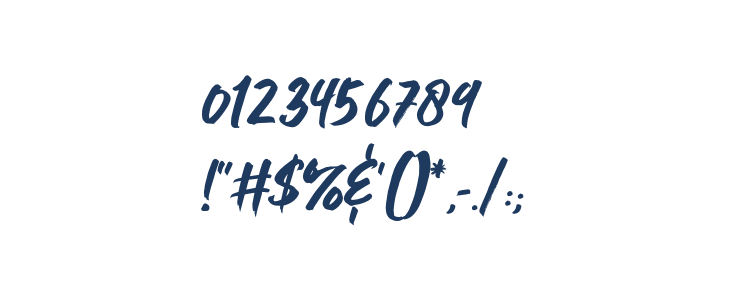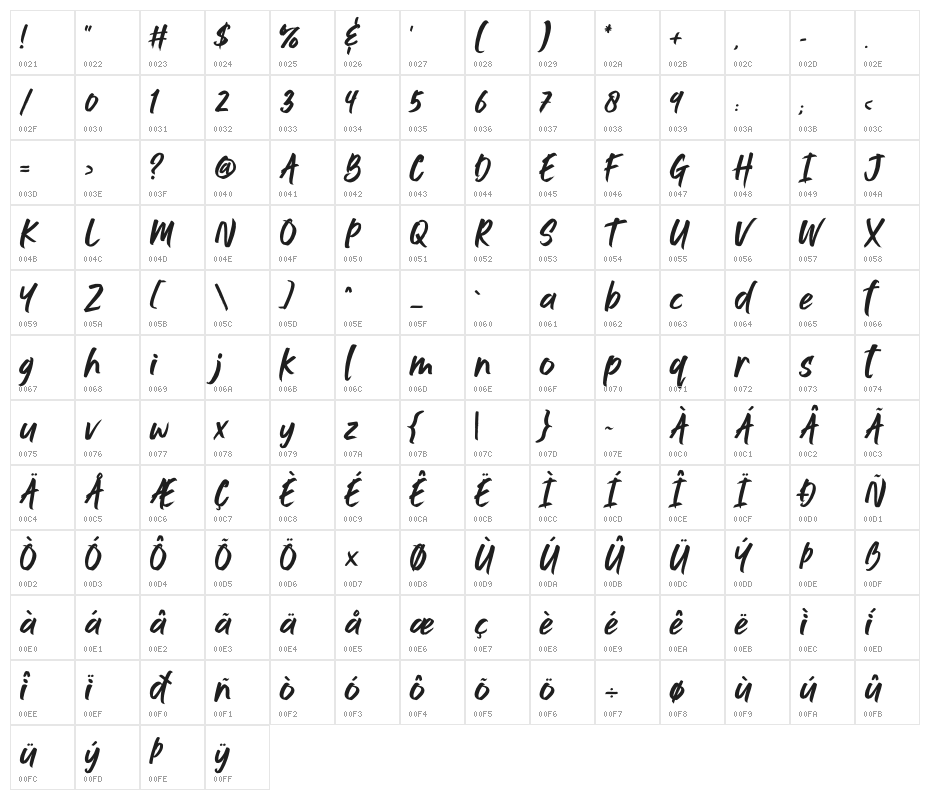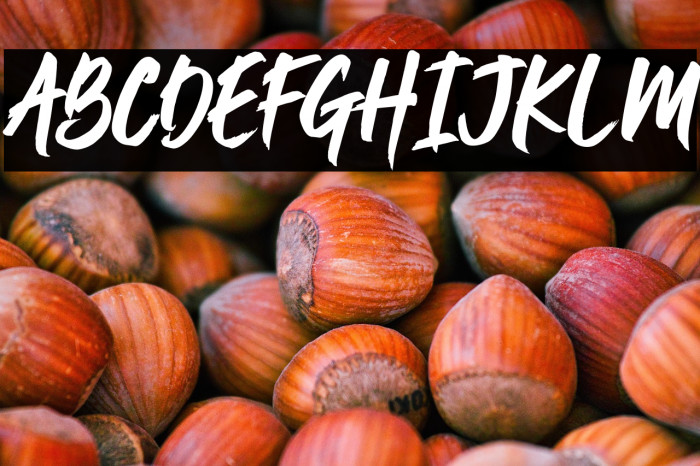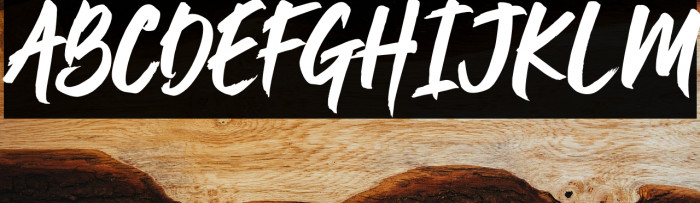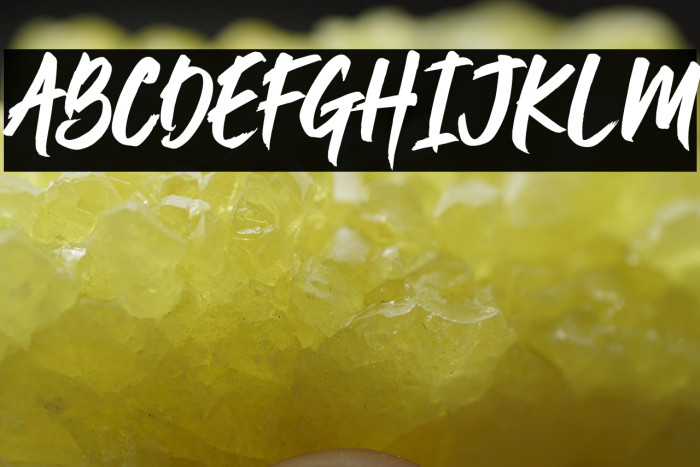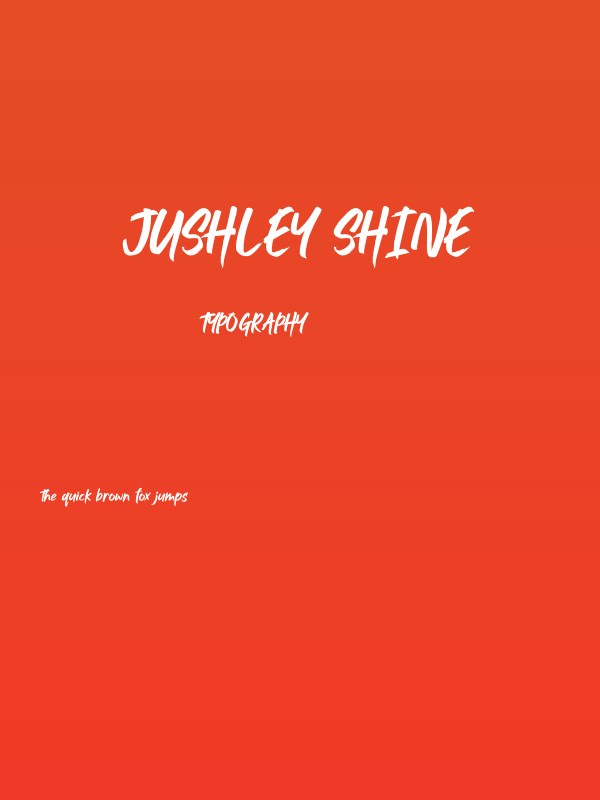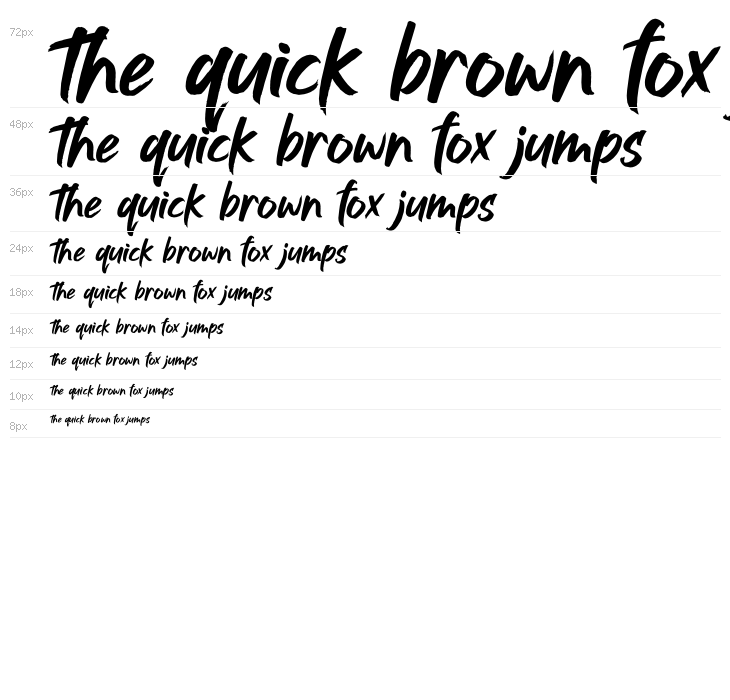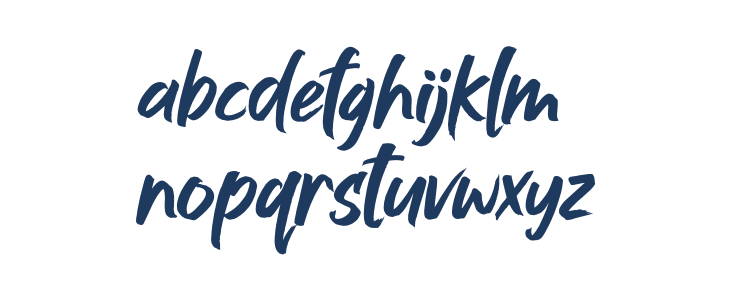
Jushley Shine Font
Jushley Shine Description
This font exhibits a bold and energetic brush script style, characterized by its dynamic and fluid strokes. The letters are crafted with a sense of movement and spontaneity, giving it a lively and expressive appearance. The uppercase and lowercase letters maintain a consistent style, with a slight slant that adds to the overall flow. Numbers and special characters are designed to match the energetic feel of the alphabet, ensuring a cohesive look across all characters. The font's boldness and artistic flair make it suitable for projects that require a touch of creativity and personality.
| Proposed Projects | Ideal for branding, posters, invitations, and any design requiring a lively, artistic touch. |